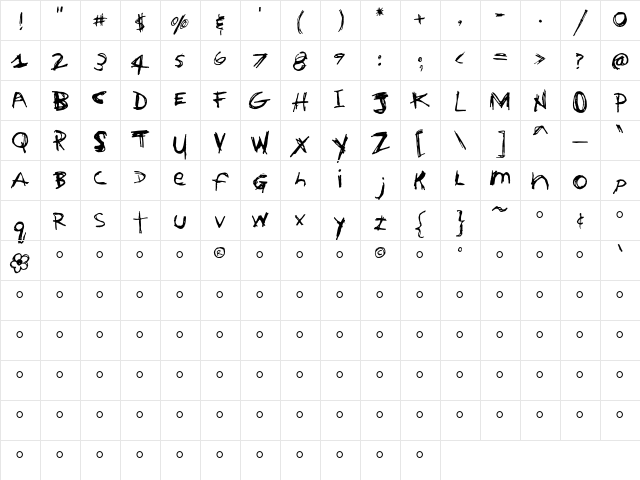
House Trained
Design Context for House Typeface
House is a composed and adaptable typeface that performs quietly and consistently across a wide range of design contexts.